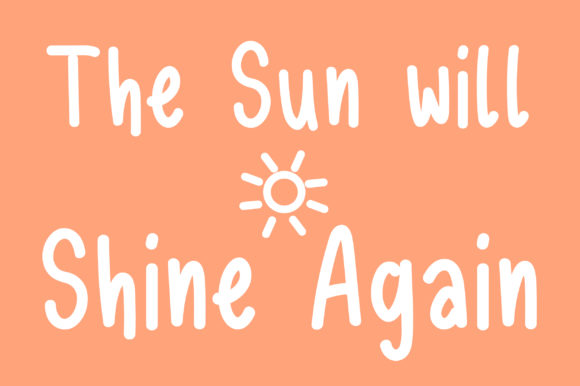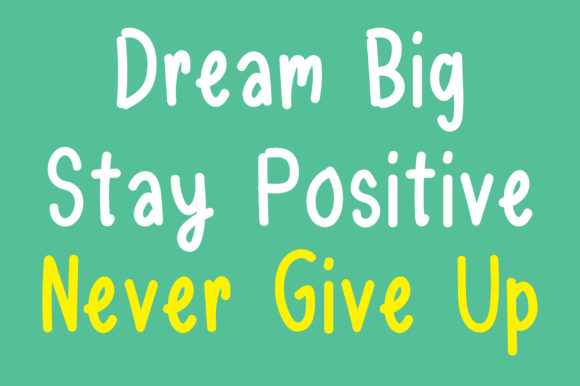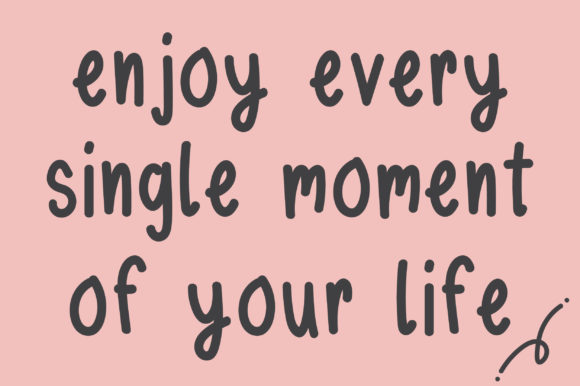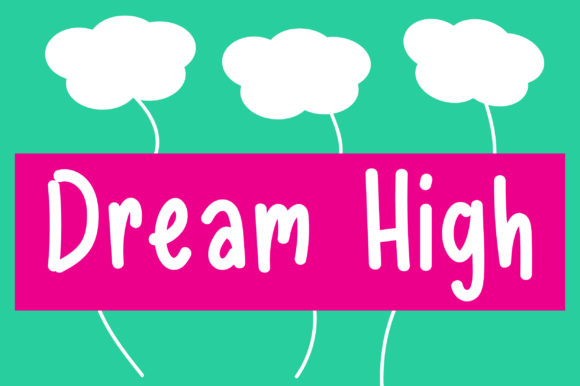
Dream High Font
About Dream High Font
Dream High is a cute handwritten font with a cheerful feel. Whether you’re looking for fonts for Instagram or calligraphy scripts for DIY projects, Dream High will turn any creative idea into a true piece of art!